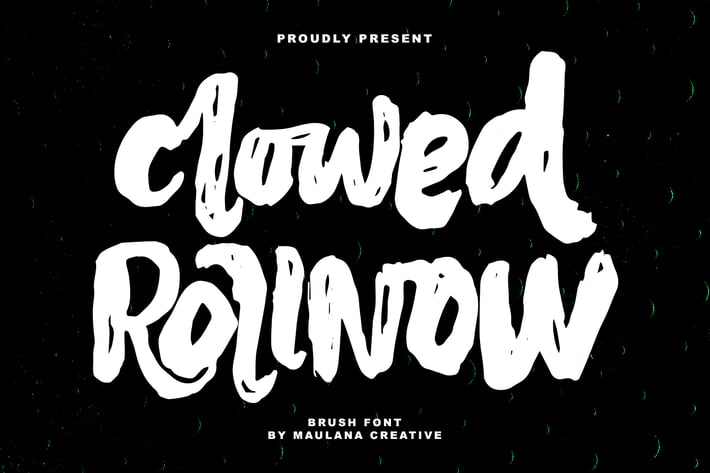
Clowed Rollnow Brush Handmade Font
Clowed Rollnow brush handmade font. This font is good for logo design, Social media, Movie Titles, Books Titles, a short text even a long text letter and good for your secondary text font with signature or script typeface. Make a stunning work with Clowed Rollnow brush handmade font.